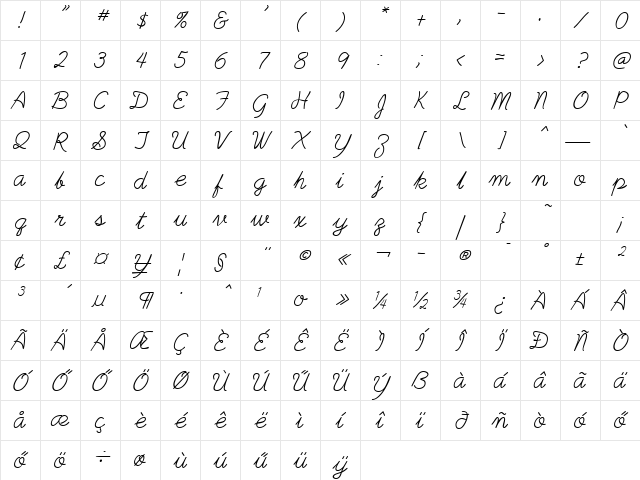
Hu_PlainPensle Italic Regular Free Font
Hu_PlainPensle Italic Regular
Design Context for Hu_PlainPensle Italic
Hu_PlainPensle Italic is a composed and adaptable typeface that performs quietly and consistently across a wide range of design contexts. The slanted form adds forward momentum and visual energy.
Pro Tip: Use Hu_PlainPensle Italic for emphasis, pull quotes, and subheadings where its slanted energy can add rhythm to the layout.